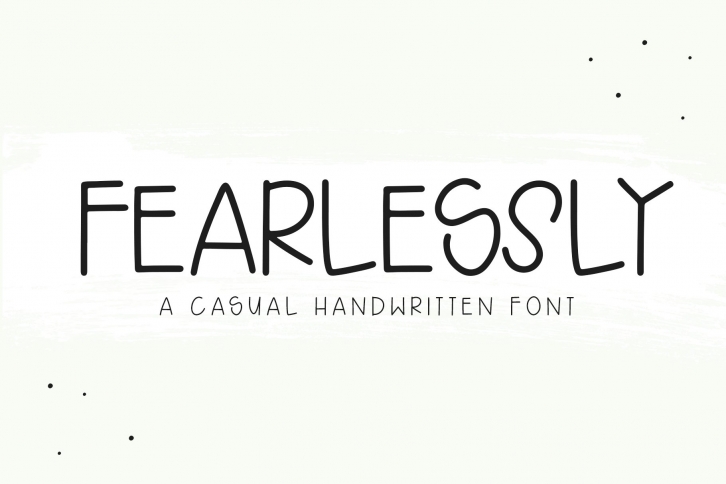
Fearlessly is a beautiful font that was designed by Design Bundles Store. It's a great choice for designers and creatives who need such a font. It was released on January 15, 2021 and the file size is 7.1 MB. Fearlessly may give a more youthful, expressive and casual look to your project. It is a very beautiful, refined, elegant, and high-quality font.